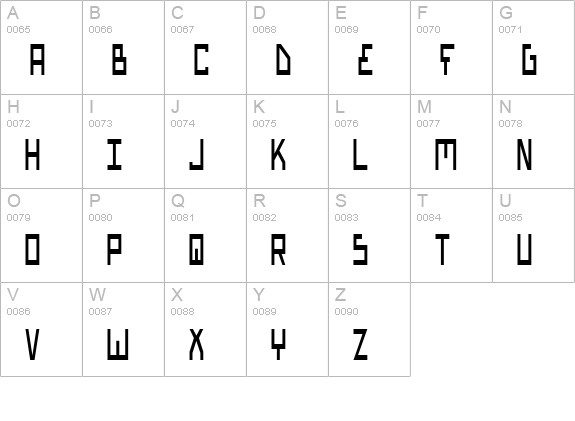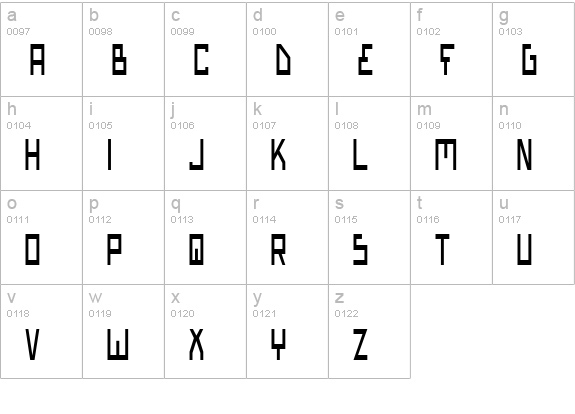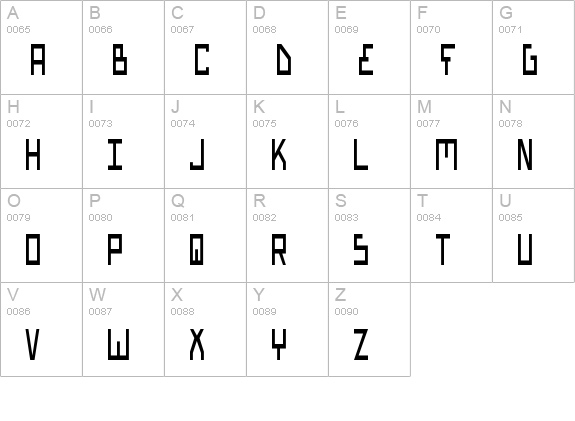
Bionic Type Condensed Font Details
Bionic Type Condensed is a distinctive, condensed-width variant in the Bionic typeface family \xE2\x80\x94 well suited to design and typography projects.
The Bionic Type Condensed font is a sleek and modern typeface that exudes a futuristic and high-tech vibe. Its condensed design makes it perfect for creating bold and impactful headlines, logos, and other design projects. The sharp lines and geometric shapes give this font a cutting-edge look that will make your work stand out. Best of all, the Bionic Type Condensed font is available for free download at FontsMarket.com. Whether you're a designer looking to add a unique touch to your projects or someone in need of a stylish and contemporary font for personal use, this font is a fantastic choice. Don't miss out on the opportunity to enhance your designs with this exceptional typeface – download the Bionic Type Condensed font today and take your work to the next level!